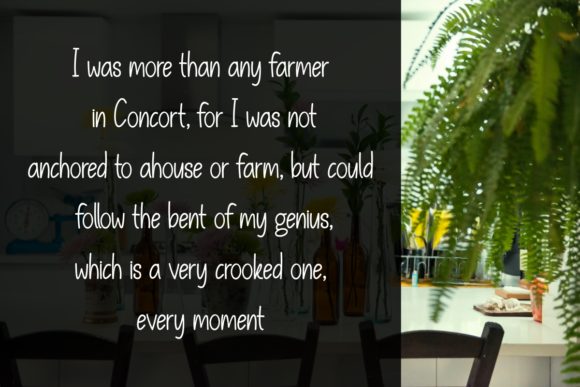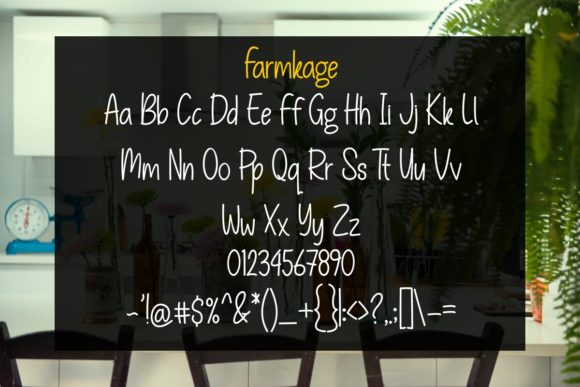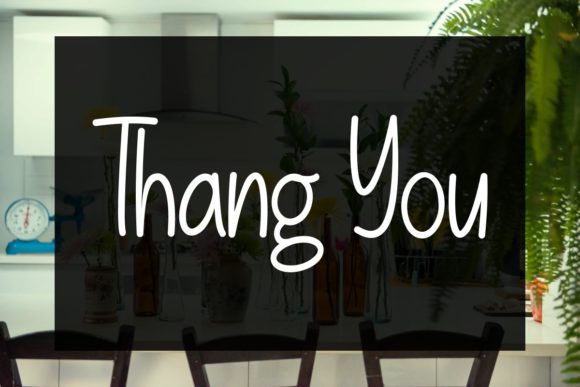
Introducing Farmkage Font: The Sweet and Friendly Handwritten Font for Your Creative Projects
Are you a designer, crafter, or DIY enthusiast looking for a font that can add a personal touch to your projects? Look no further than Farmkage Font, a sweet and friendly handwritten font that’s perfect for a wide range of designs. With its natural and simple style, Farmkage Font is incredibly versatile and can be used in various creative projects, from handmade crafts to digital designs.
The Charm of Farmkage Font
Farmkage Font is a beautifully crafted handwritten font that’s designed to evoke a sense of warmth and friendliness. Its natural and simple style makes it perfect for designers and crafters who want to add a personal touch to their projects. Whether you’re creating a handmade card, a digital invitation, or a craft tutorial, Farmkage Font is the perfect choice.
One of the best things about Farmkage Font is its versatility. It can be used in a wide range of designs, from rustic and vintage-inspired projects to modern and minimalist designs. The font’s sweet and friendly style makes it perfect for projects that require a personal touch, such as:
- Handmade crafts, such as knitting, sewing, and paper crafting
- Digital designs, such as invitations, flyers, and brochures
- Craft tutorials and patterns
- Blog and website designs
What Makes Farmkage Font So Special?
So, what makes Farmkage Font so special? Here are just a few reasons why designers and crafters love this font:
- Unique and Handwritten Style: Farmkage Font has a unique and handwritten style that’s perfect for adding a personal touch to your projects.
- Natural and Simple: The font’s natural and simple style makes it incredibly versatile and easy to use.
- Easy to Read: Farmkage Font is easy to read, even in small sizes, making it perfect for body text and captions.
- Highly Legible: The font is highly legible, even on digital devices, making it perfect for digital designs.
How to Use Farmkage Font in Your Projects
Using Farmkage Font in your projects is easy! Here are a few tips to get you started:
- Pair it with Other Fonts: Farmkage Font pairs well with other fonts, such as sans-serif fonts and script fonts.
- Use it for Headings and Body Text: Use Farmkage Font for headings and body text to add a personal touch to your projects.
- Add it to Your Digital Designs: Add Farmkage Font to your digital designs, such as invitations, flyers, and brochures, to give them a personal touch.
- Use it for Craft Tutorials and Patterns: Use Farmkage Font for craft tutorials and patterns to make them more readable and visually appealing.
In conclusion, Farmkage Font is a sweet and friendly handwritten font that’s perfect for designers, crafters, and DIY enthusiasts. Its natural and simple style makes it incredibly versatile and easy to use. Whether you’re creating handmade crafts, digital designs, or craft tutorials, Farmkage Font is the perfect choice. So why wait? Download Farmkage Font today and add a personal touch to your projects!
The only limit to what you can create with Farmkage Font is your imagination! So, get creative and have fun with this beautiful font.